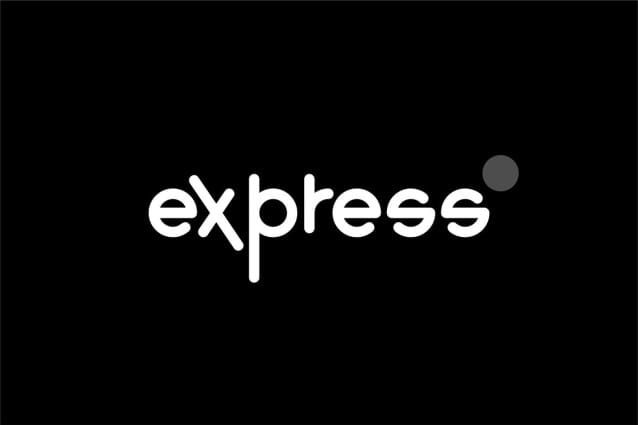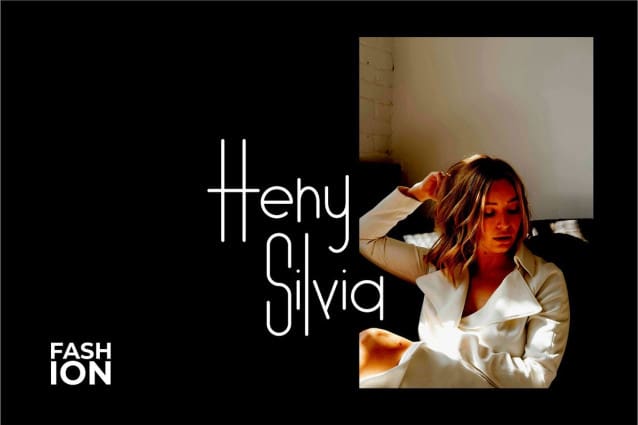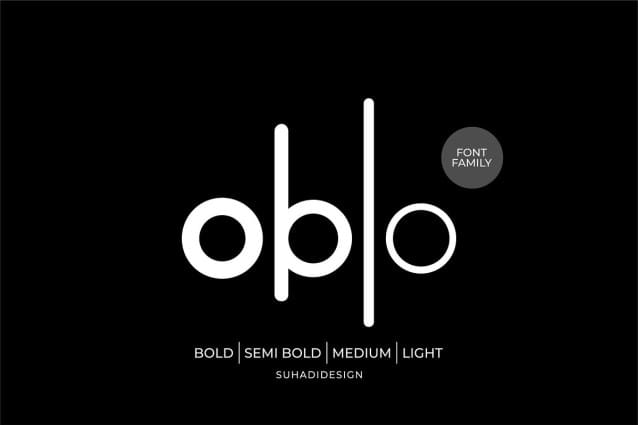
Oblo Font Family
Oblo Font Family is a stylish sans serif font. with the latest simple style, it has become a market favorite. We keep this font looking elegant, classy, ​​stylish. obloFonts are the right choice for logos, branding, brands, fashion, motivational words, beauty, magazines, designs, books, publications, brand names, business cards, social media, classy designs, newspapers and other projects. oblo Font is here to improve the quality of your designs.